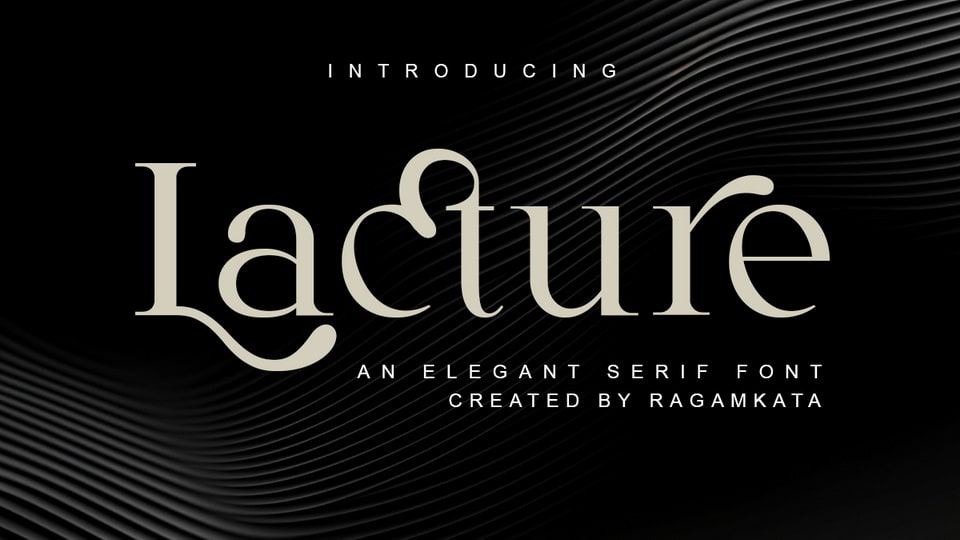
Download Lacture font, a refined and sophisticated serif typeface designed to elevate your creative projects with its graceful curves, high contrast strokes, and unique ligature.